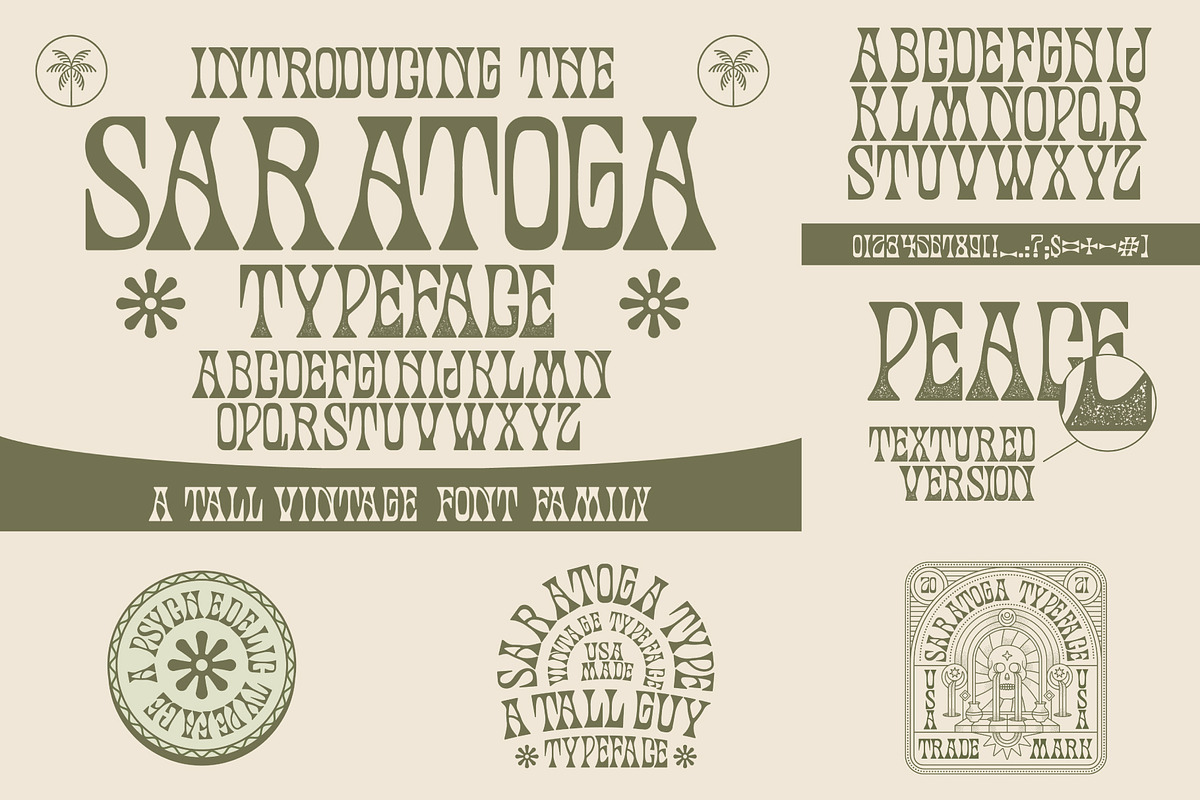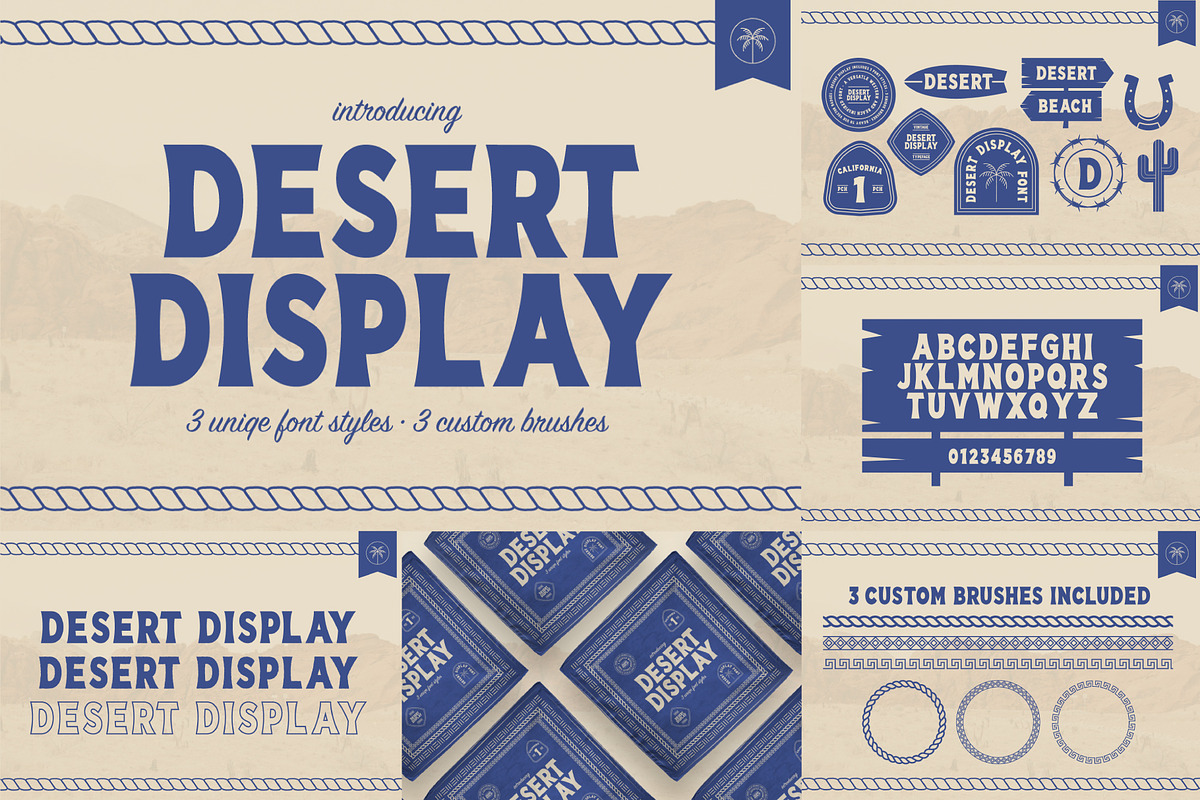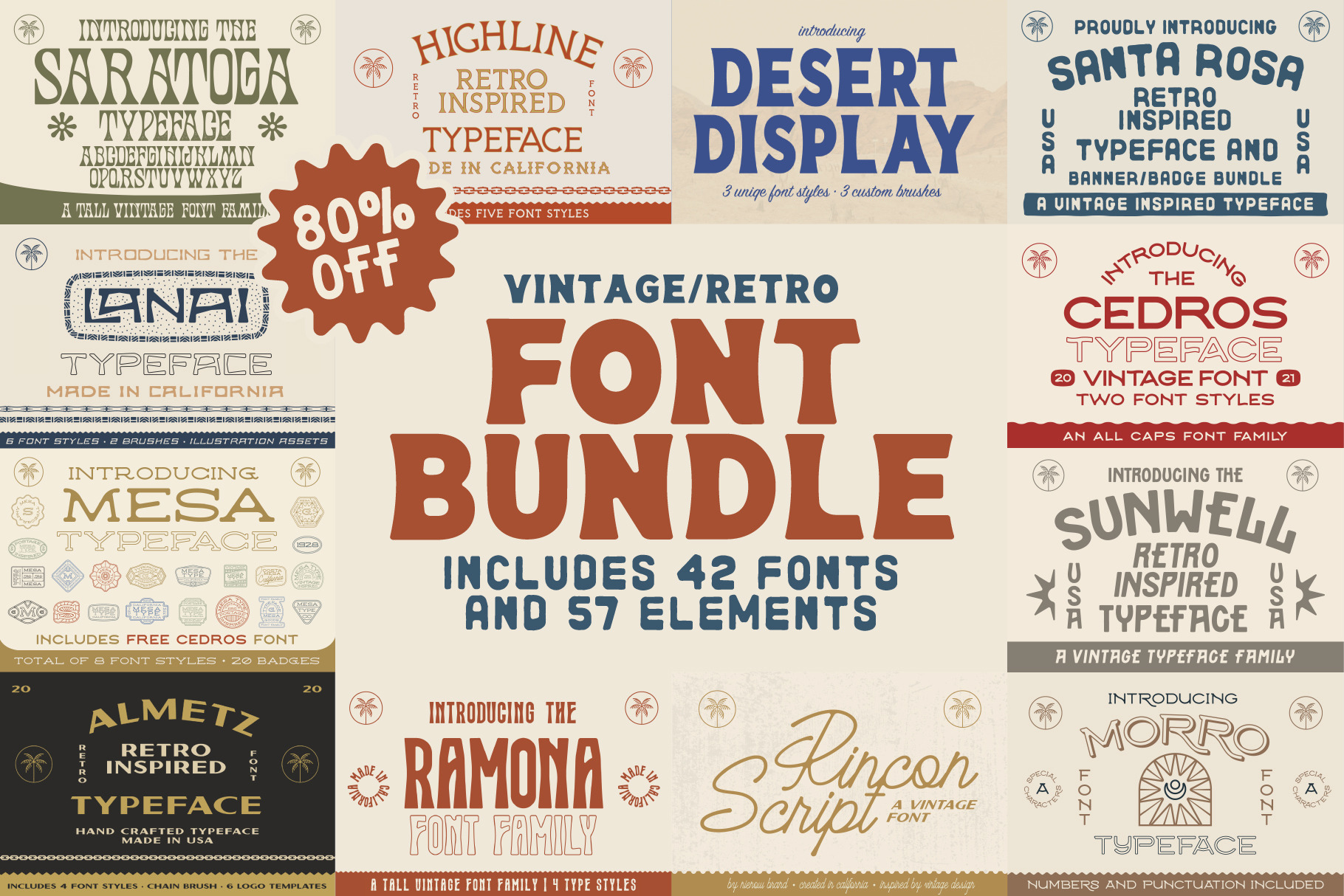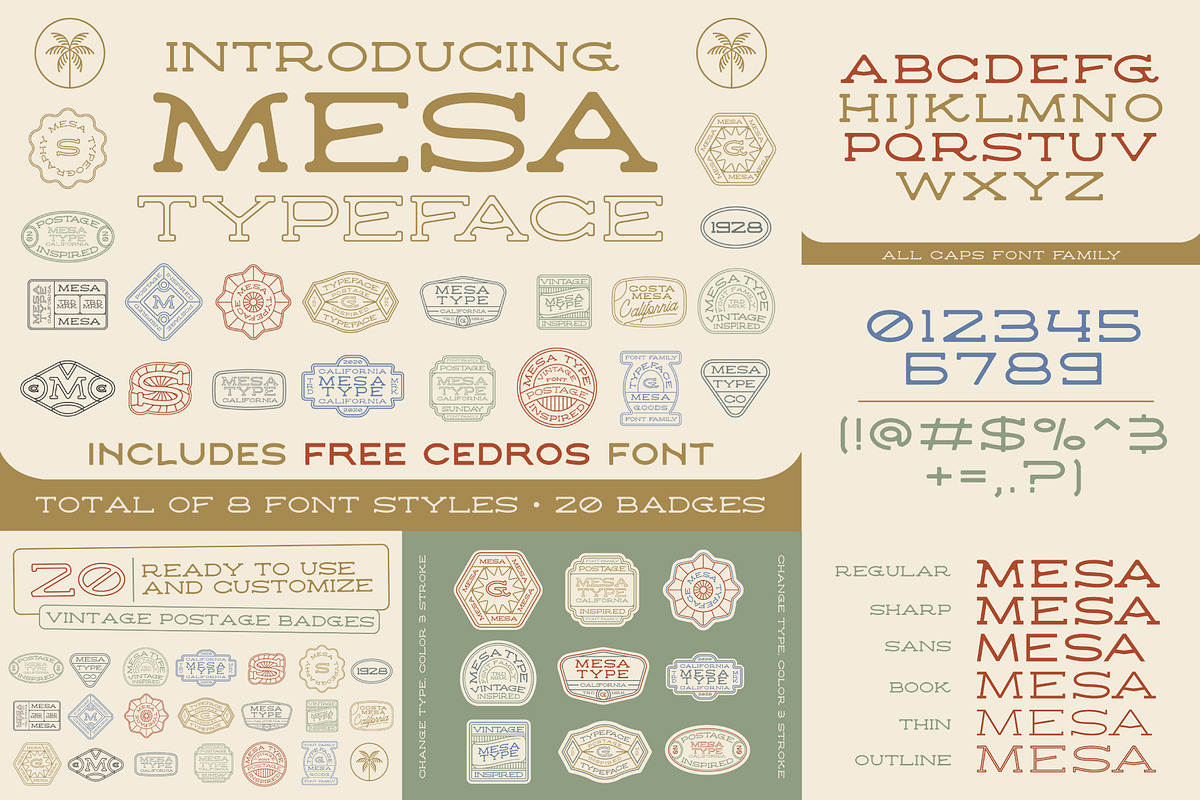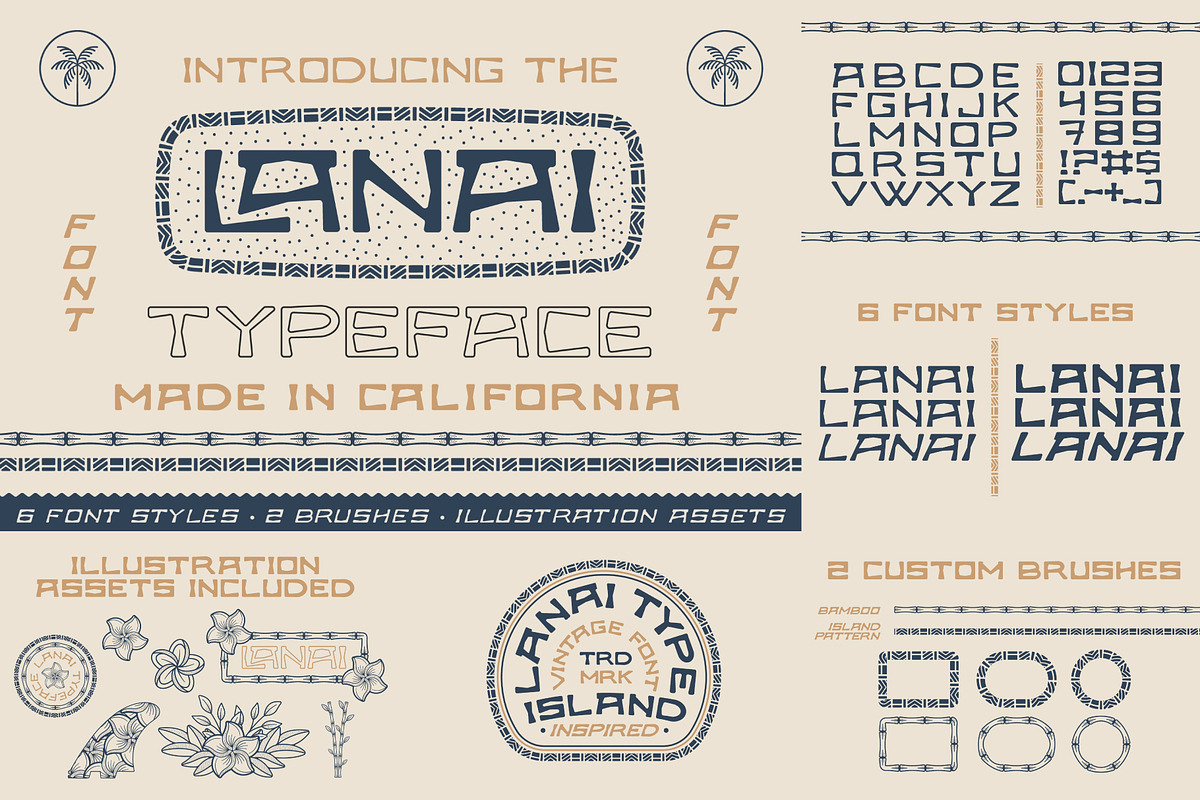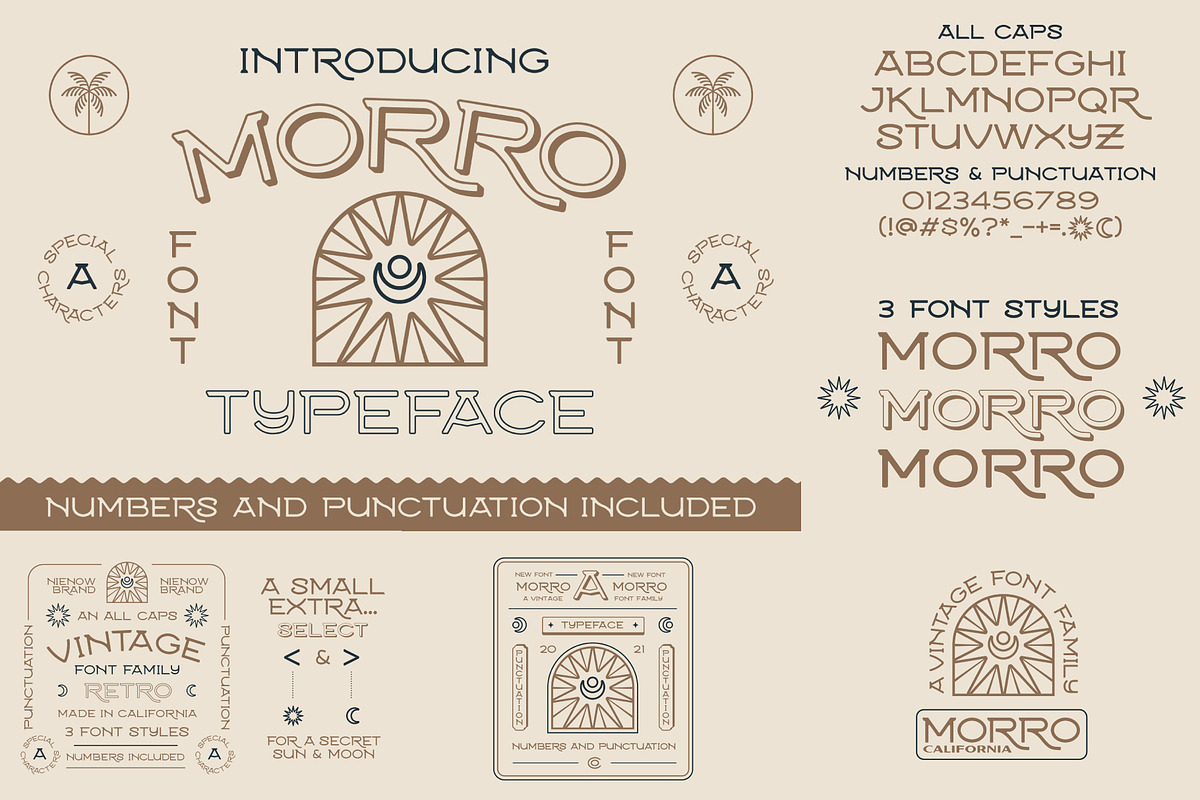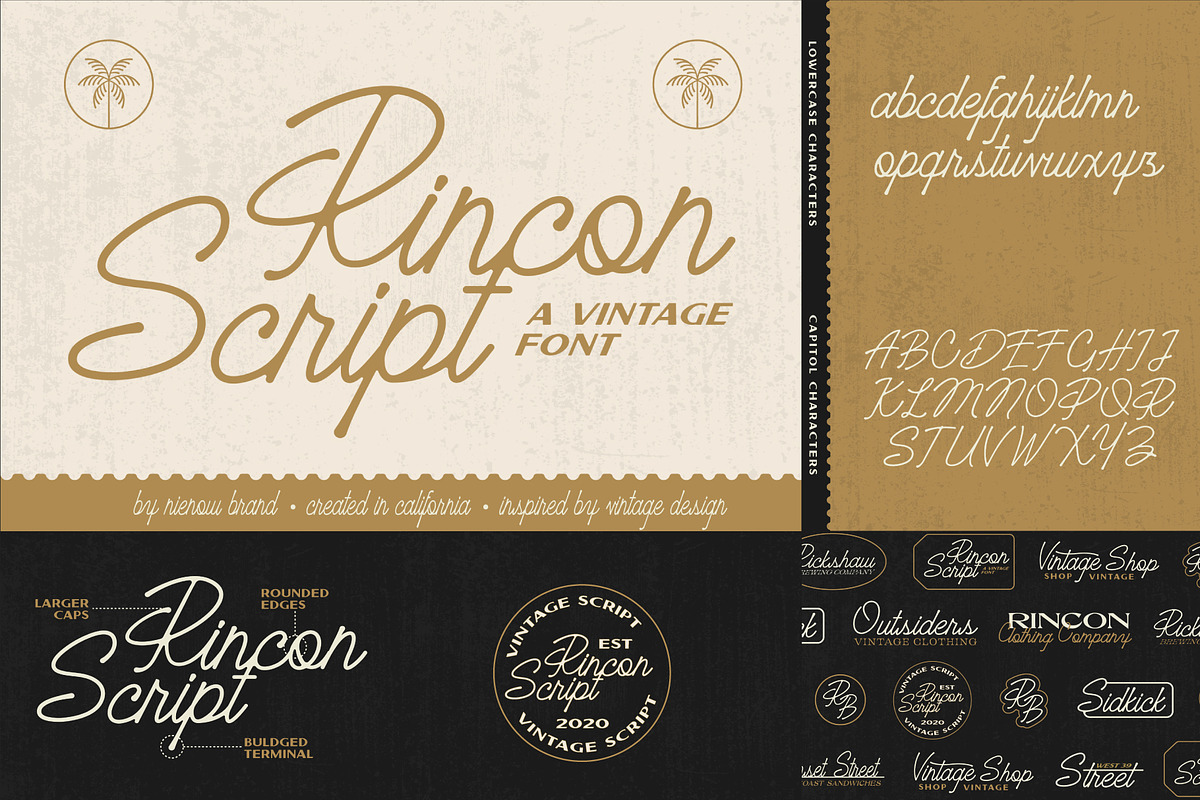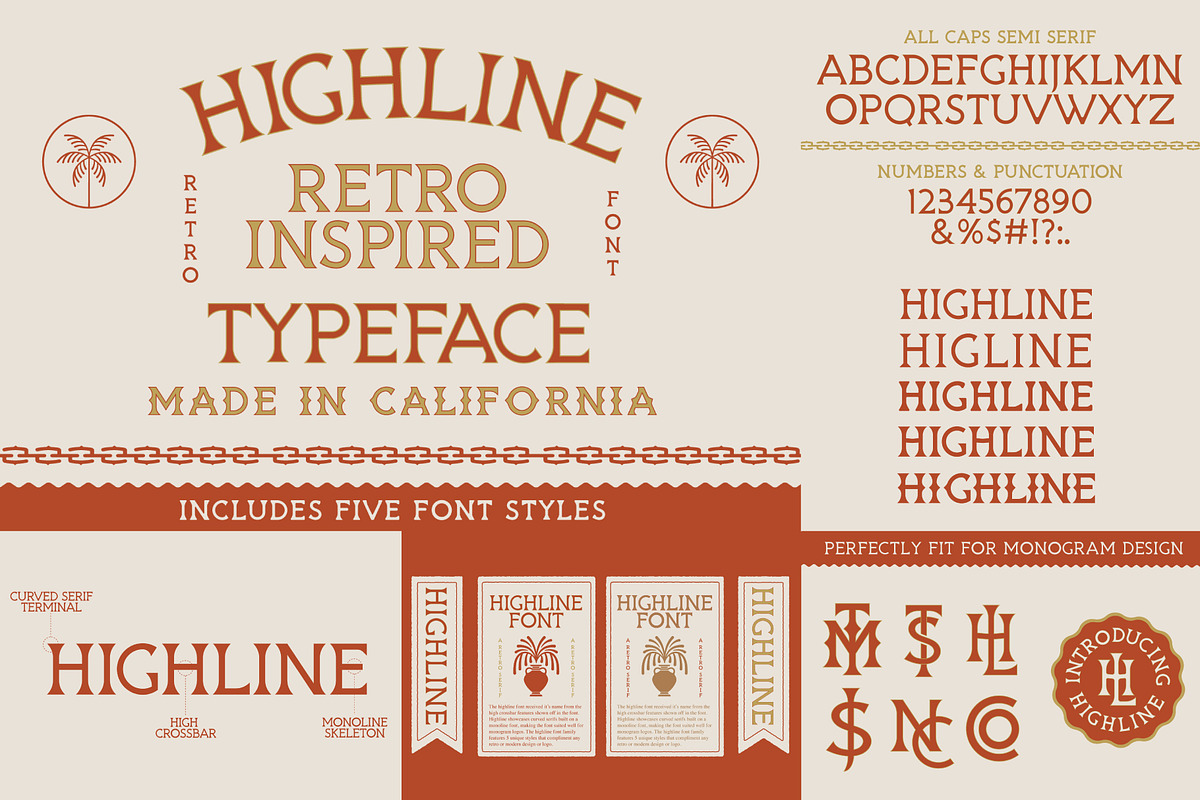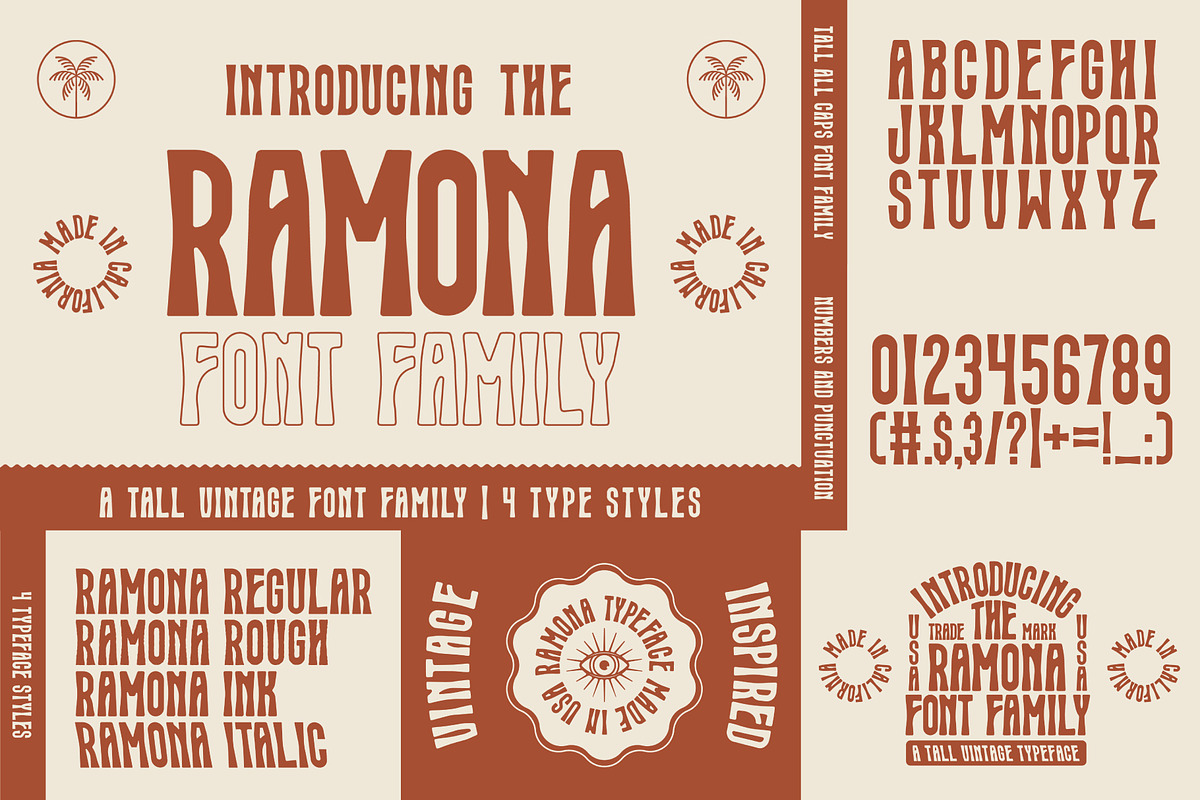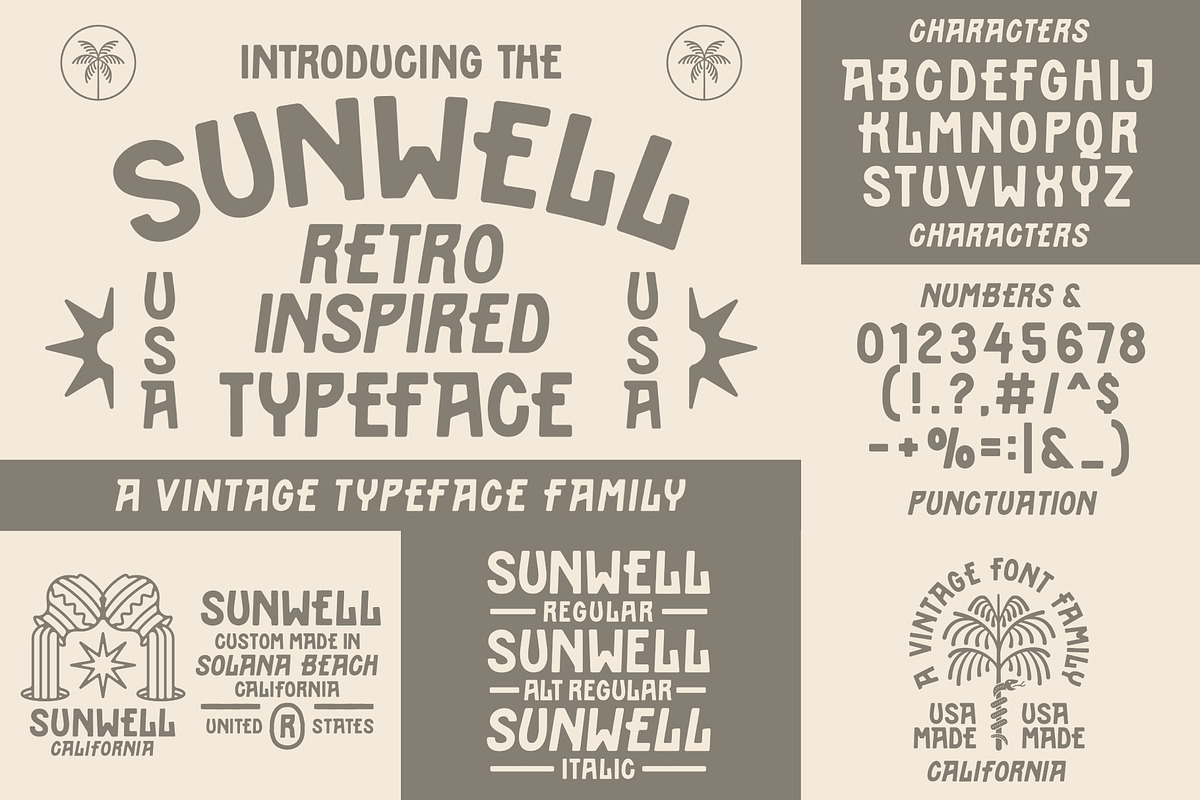
The Vintage Font Bundle
42 font styles, 7 .AI brushes, 50 badge templates & illustrations
Fonts included are:
This bundle includes the best selling fonts from the shop. Everything you need from fonts, brushes, illustrations, and badge templates are included in this bundle to create a great vintage design.